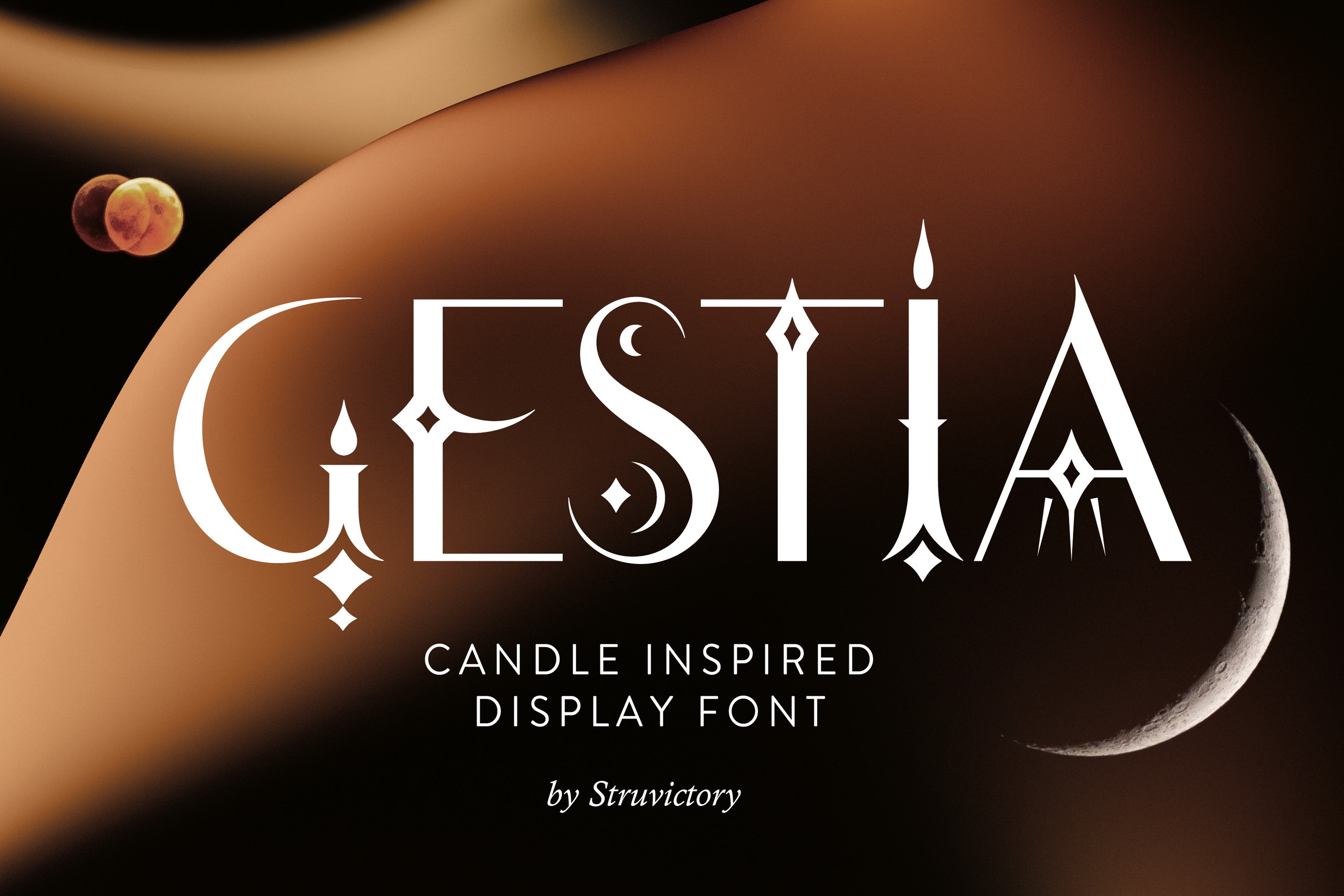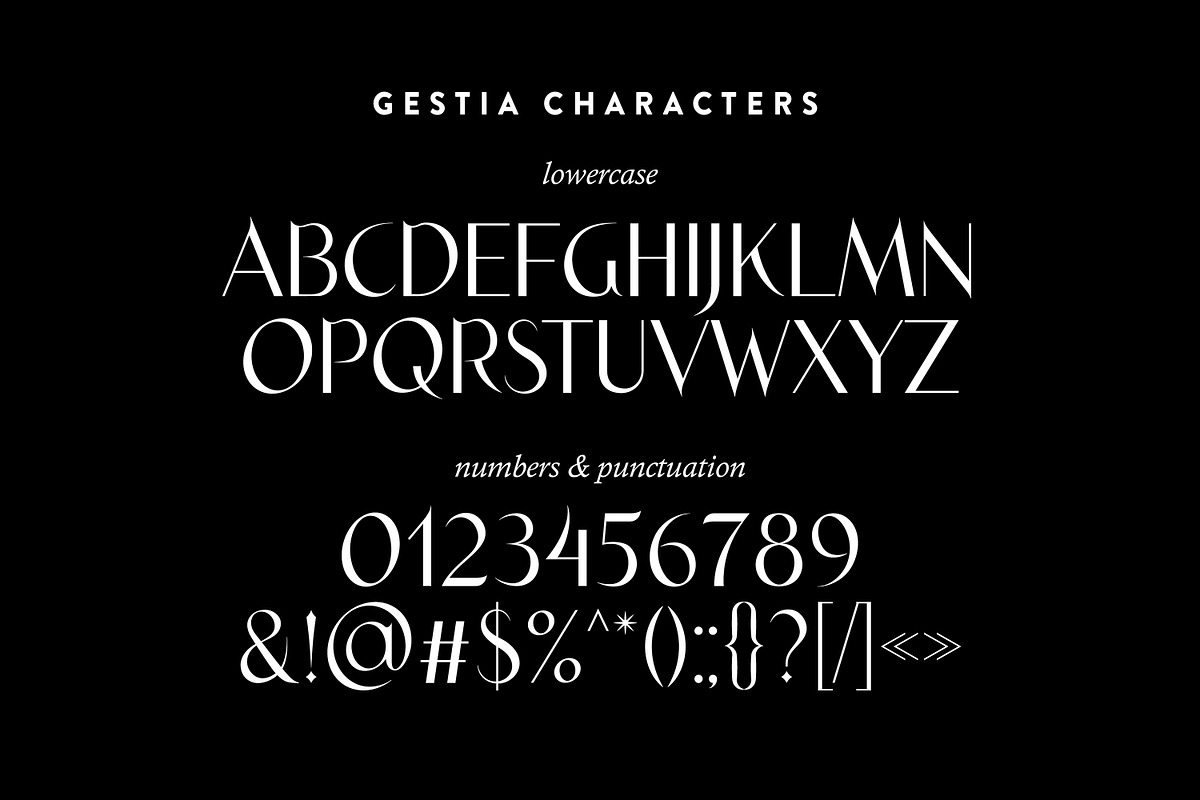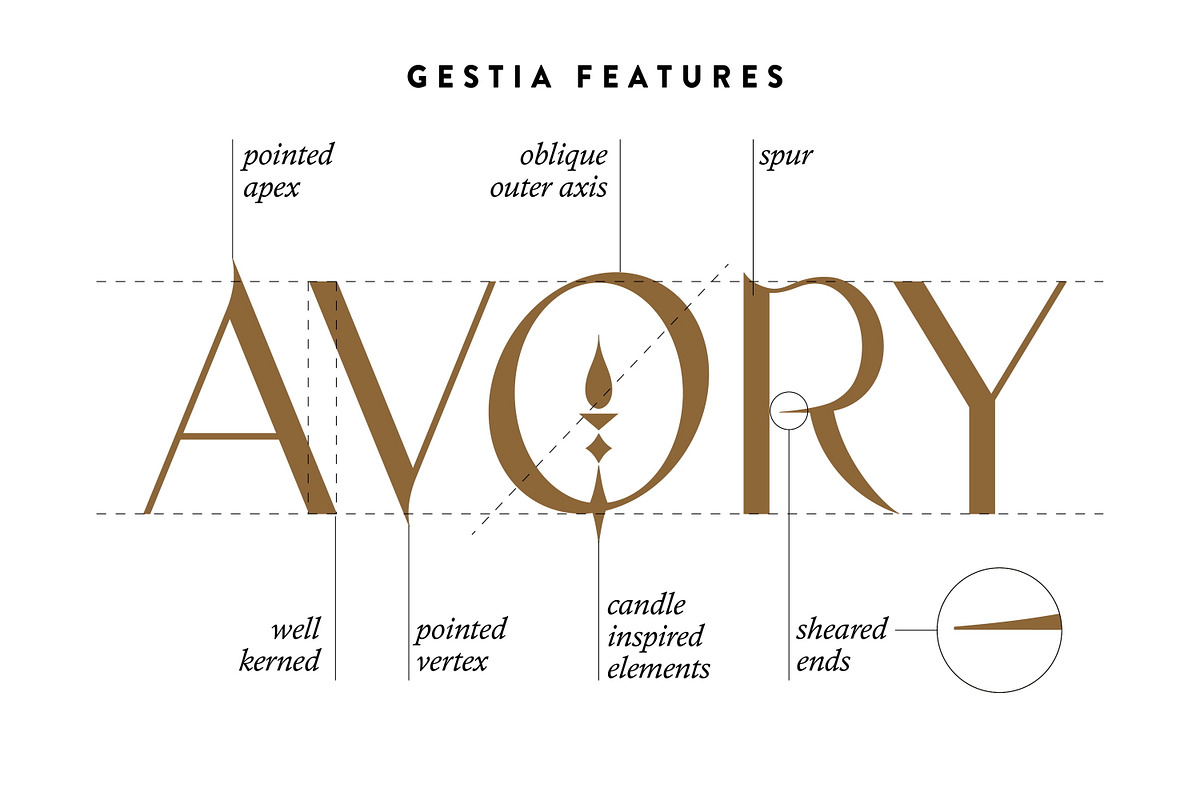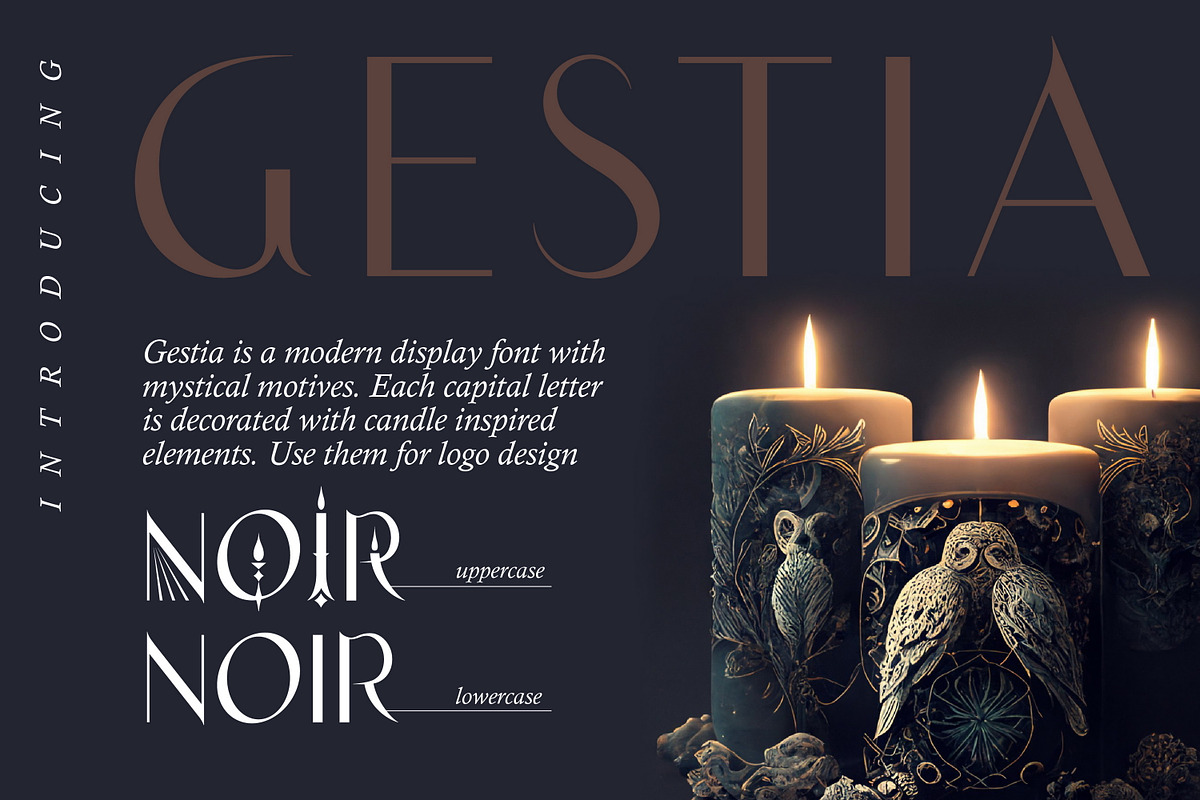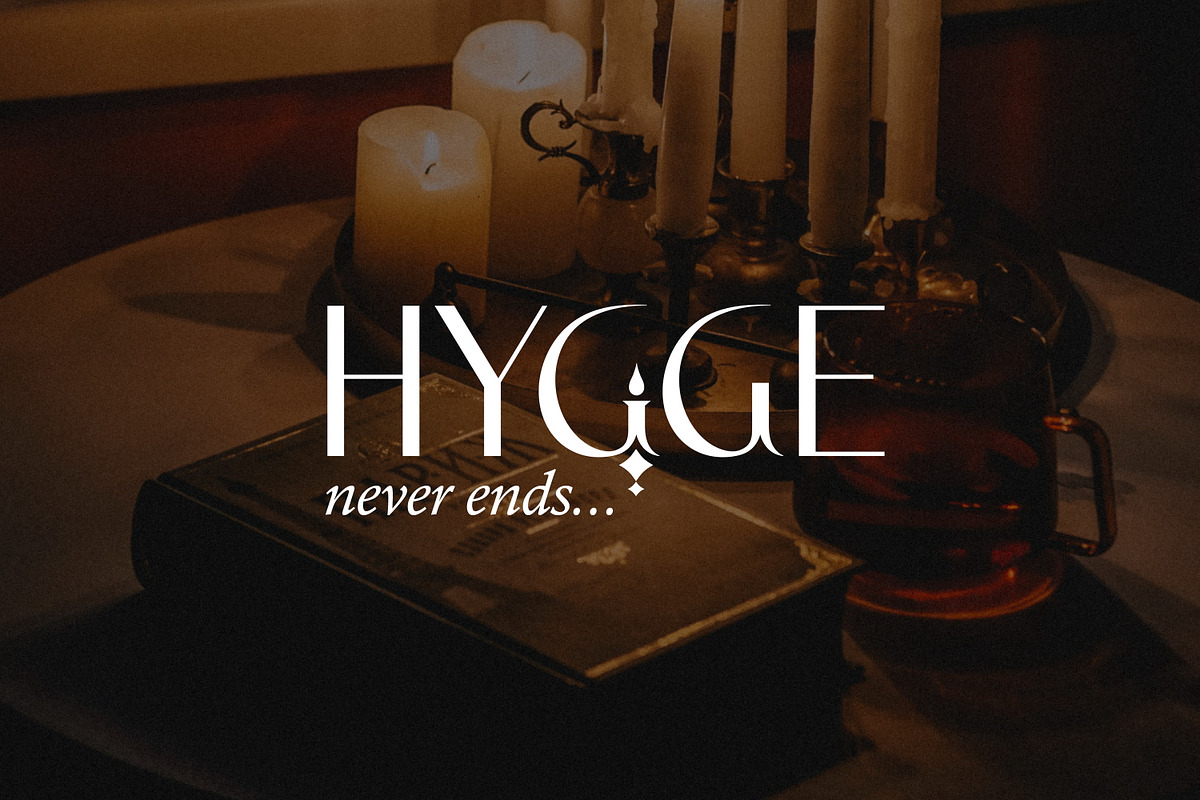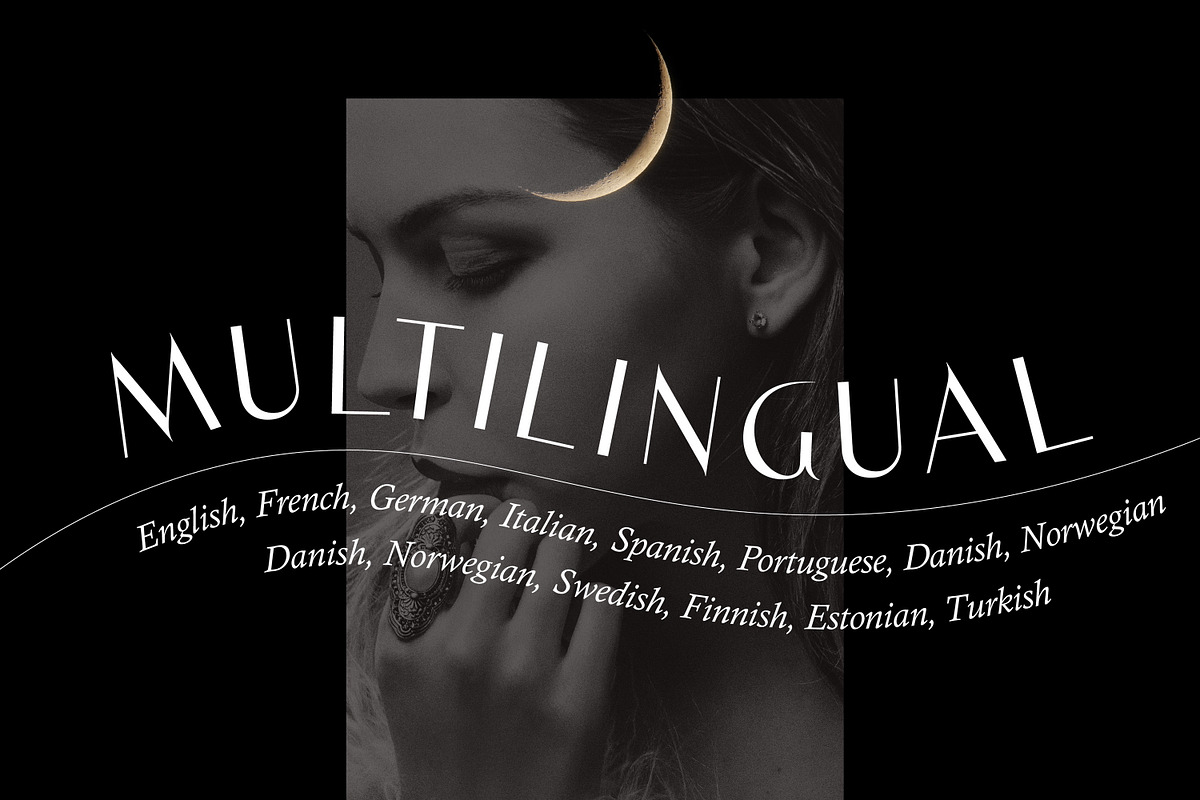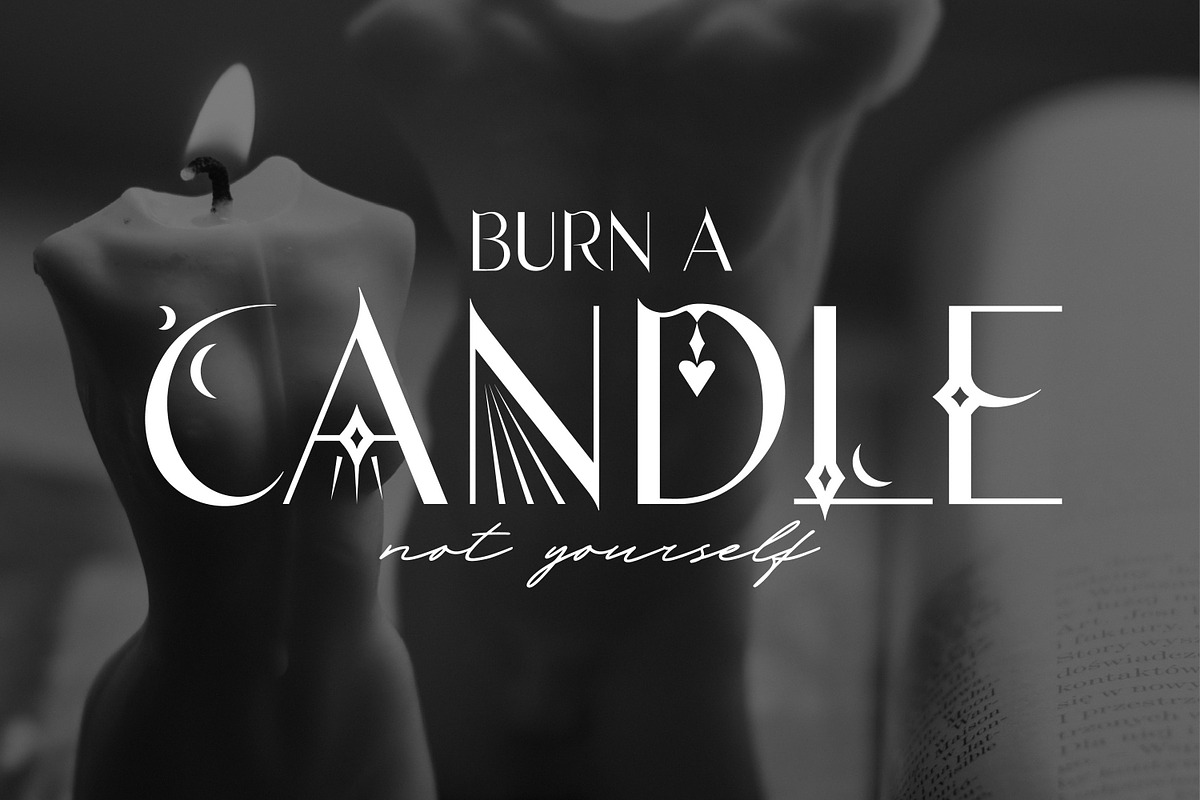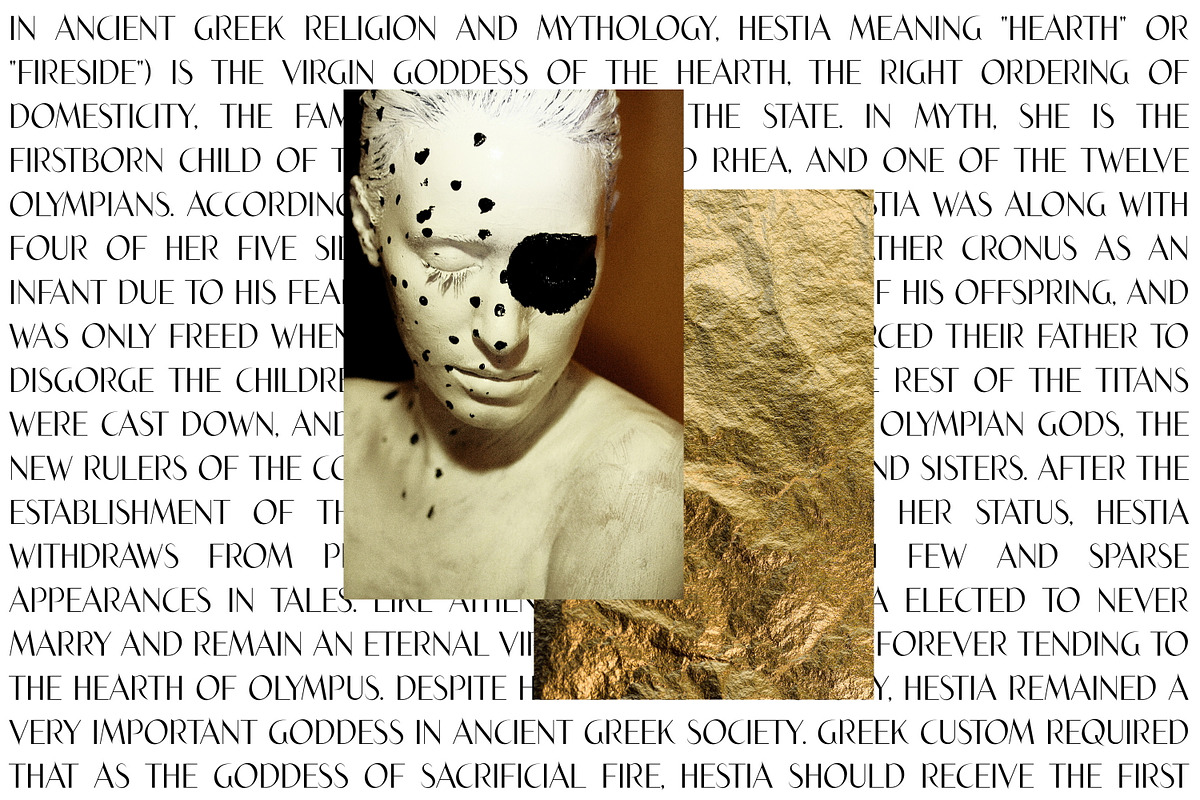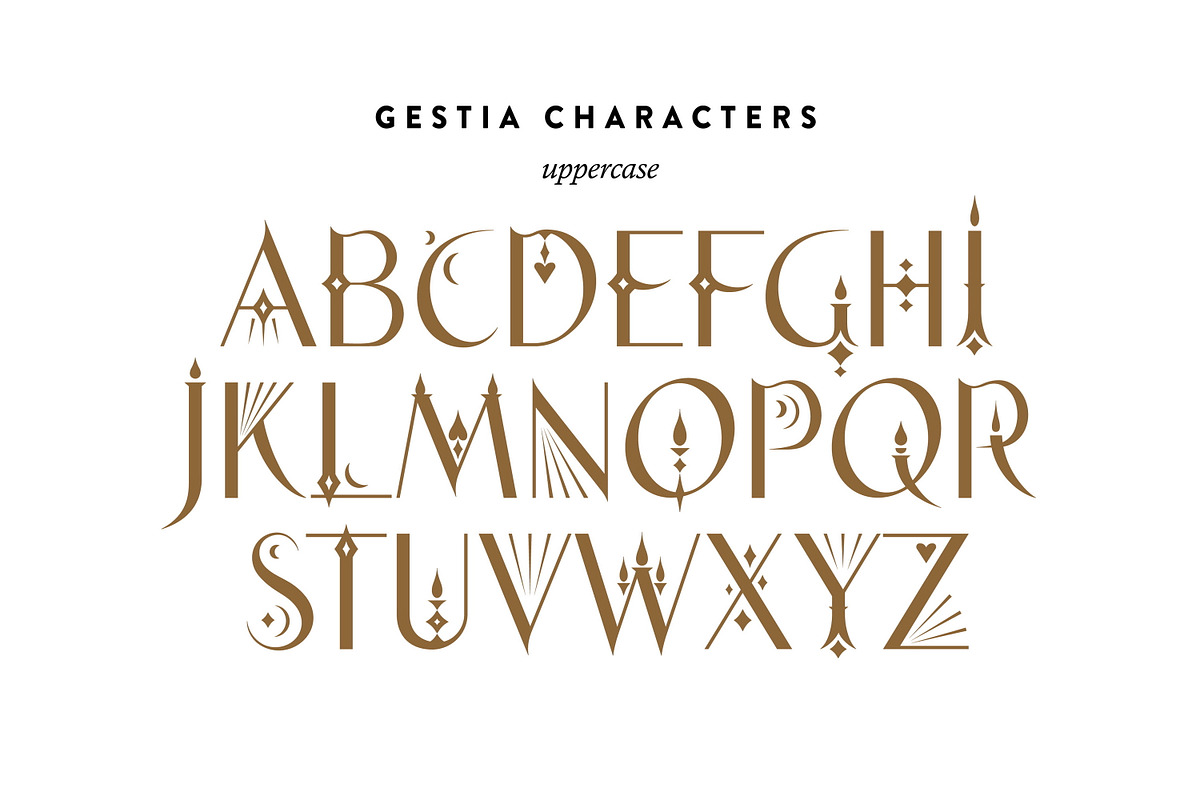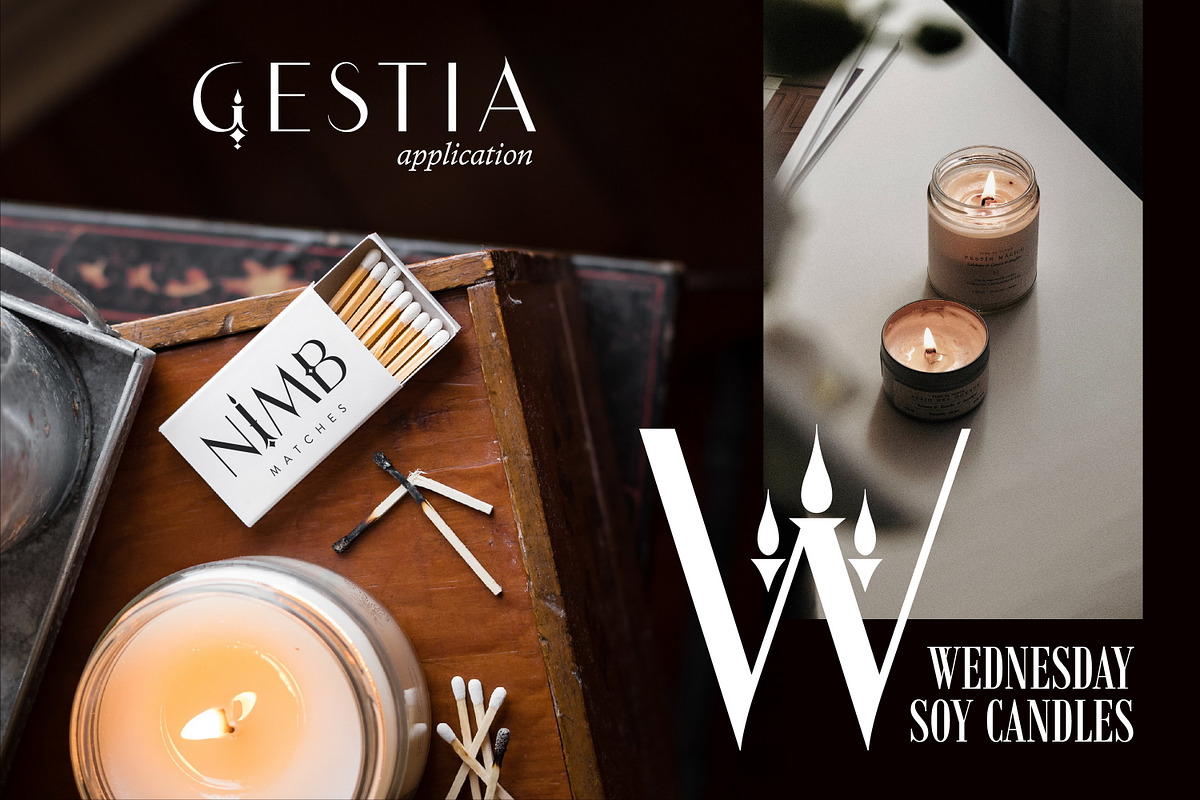
Gestia Candle Aesthetic Display Font
GESTIA is a modern sans serif font with mystical motives. The font is created in classic proportions and decorated with candle inspired elements. GESTIA is represented by sans serif lowercase and ornate uppercase. The font is suitable for the design on the theme of candle design, astrology, mysticism, spirituality, witchcraft, magic, esotericism.
GESTIA has extensive language support, it includes English, French, German, Italian, Spanish, Portuguese, Danish, Norwegian, Swedish, Finnish, Estonian, Turkish. Need to know if your language is supported? Type any words in the text box below and see if all characters you need are there.